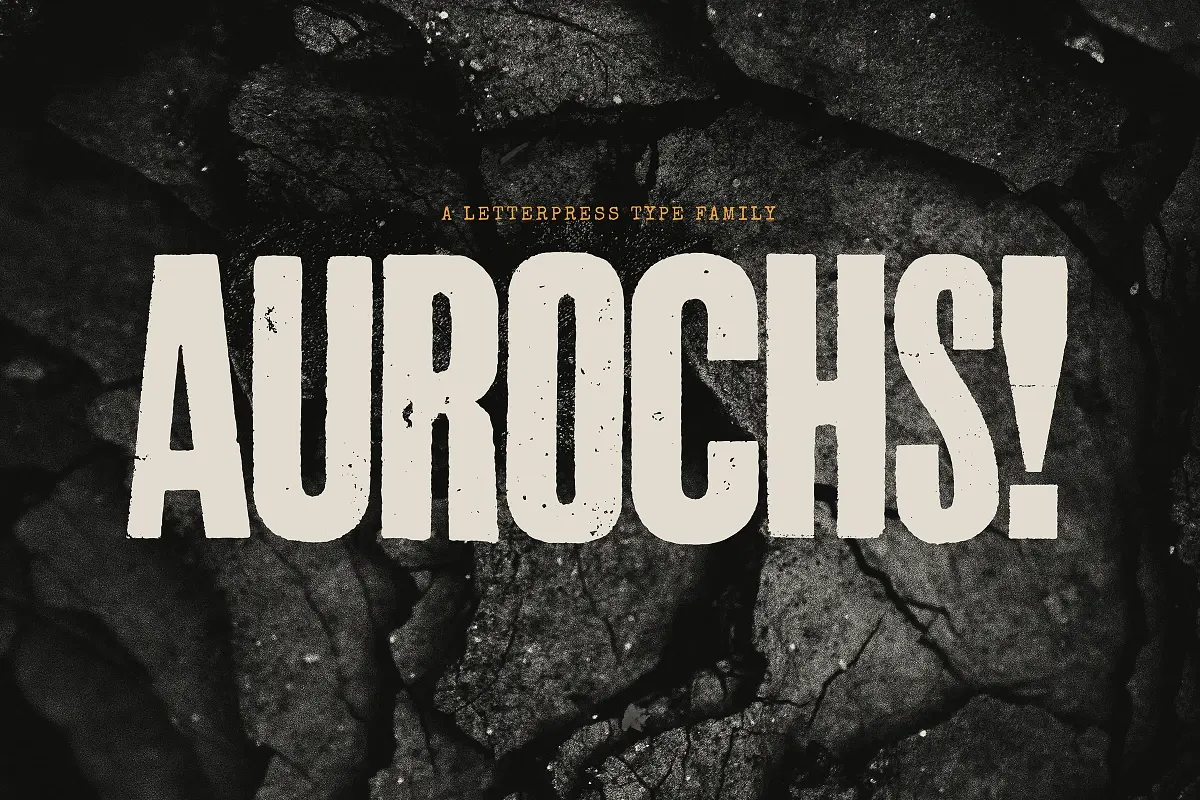
Aurochs Font Free Download is a rugged and authentic letterpress type family that brings vintage charm and tactile warmth to your designs. Inspired by traditional print techniques, Aurochs captures the imperfect beauty of ink on paper, making it perfect for posters, packaging, logos, and editorial layouts with a handcrafted aesthetic.
This versatile font family includes multiple weights and styles that emulate the texture and bold character of old-school letterpress printing. Whether you're going for a rustic, industrial, or retro vibe, Aurochs adds depth and authenticity that digital fonts often lack.